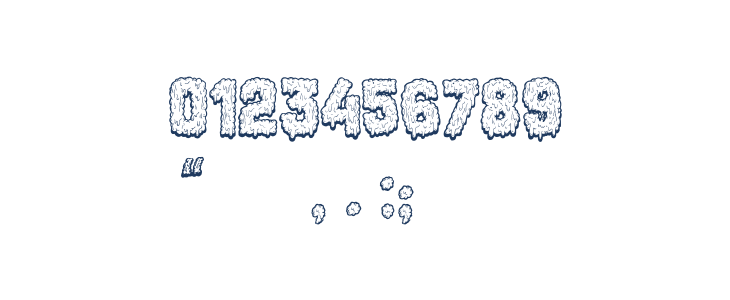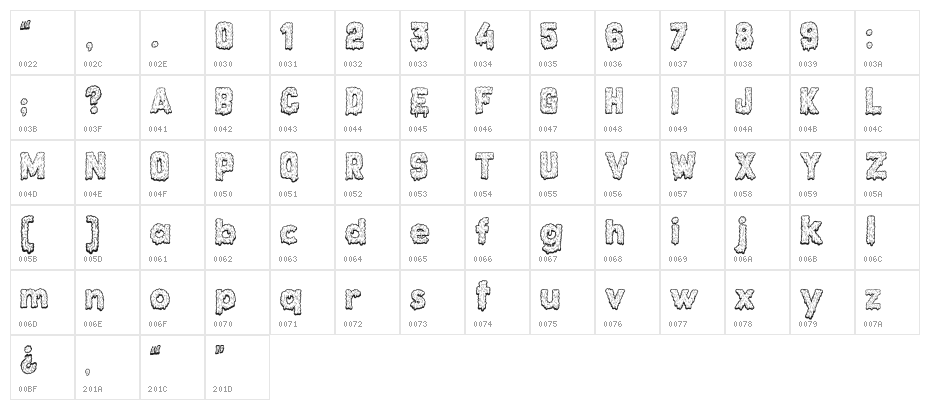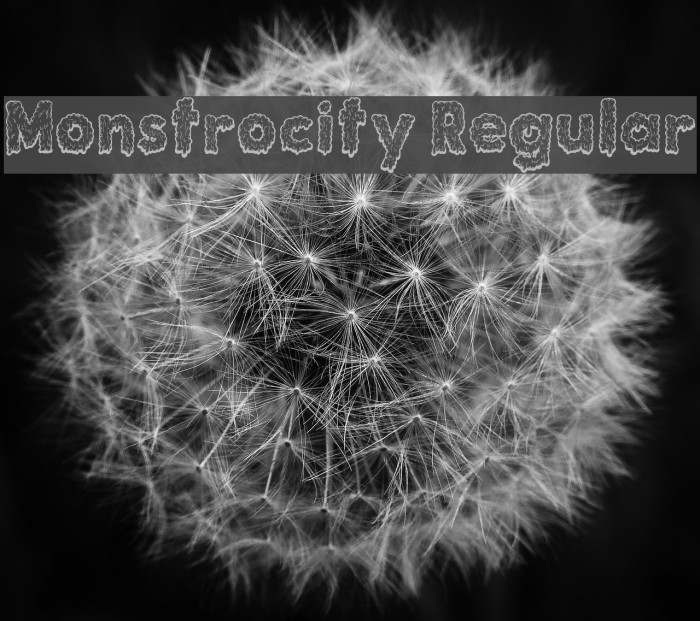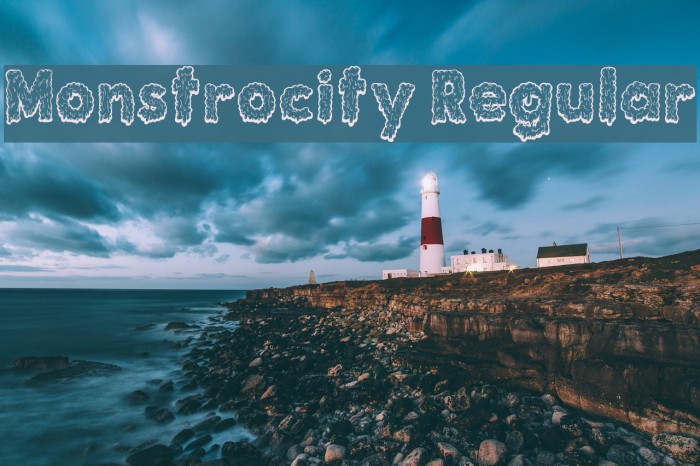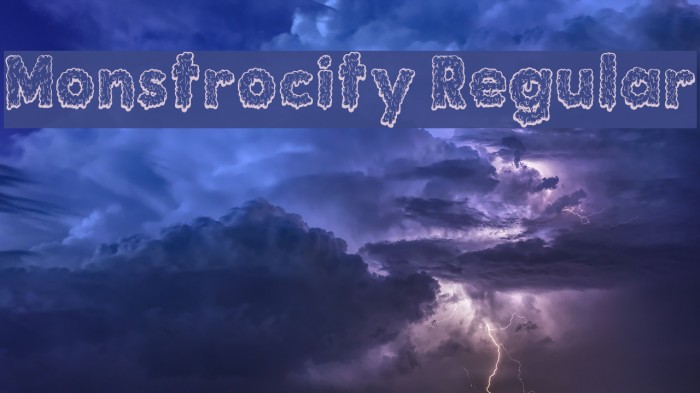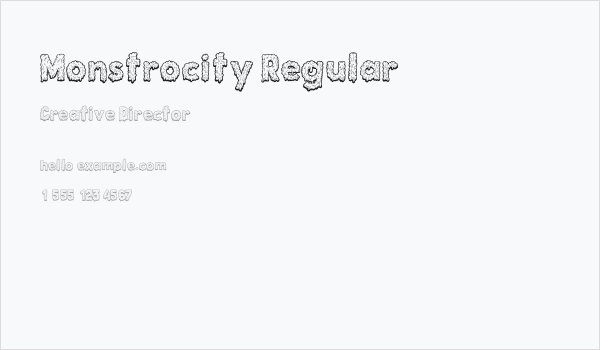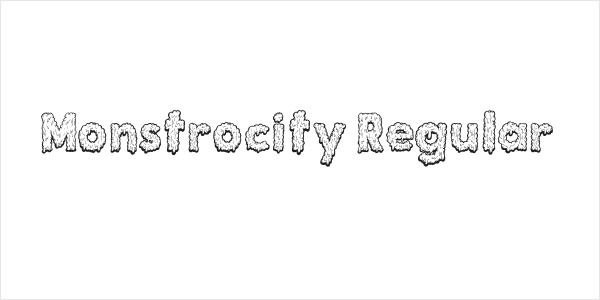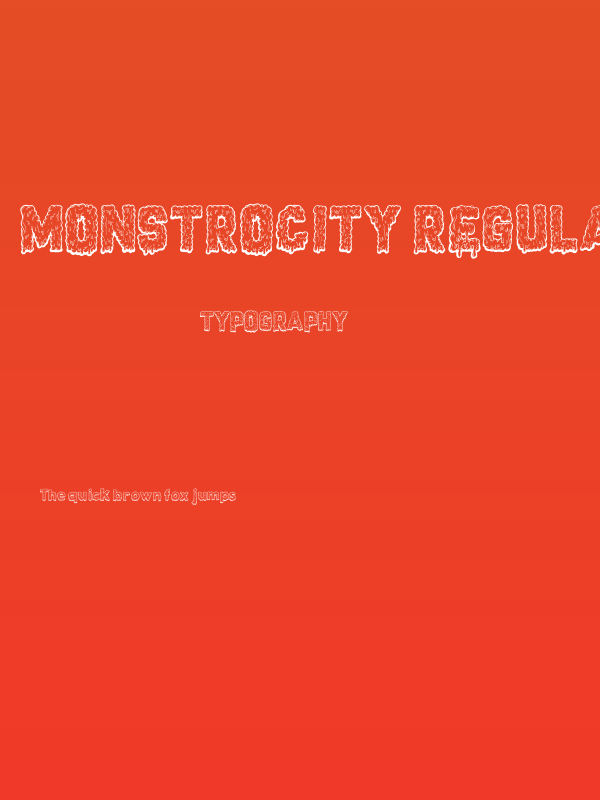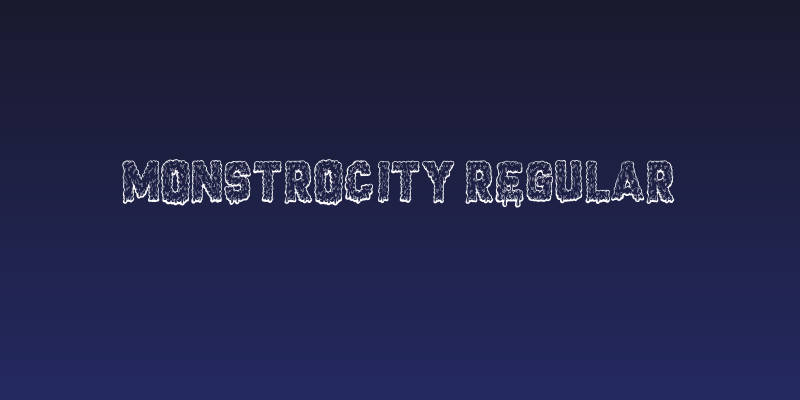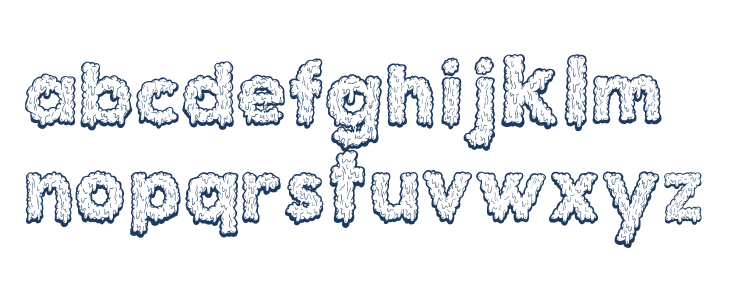
Monstrocity Regular Font
Monstrocity Regular Description
This font features a unique, textured design that resembles dripping or melting material, giving it a monstrous and playful appearance. The characters are bold and heavily stylized, with irregular edges that create a sense of movement and fluidity. Each letter and number is distinct, with a hand-drawn quality that adds to its quirky and creative feel. The font is highly decorative, making it ideal for eye-catching designs that require a touch of whimsy and imagination. Its distinctive style is perfect for projects that aim to stand out and make a bold statement.
| Proposed Projects | Ideal for Halloween-themed designs, children's book covers, playful posters, and creative branding projects. |